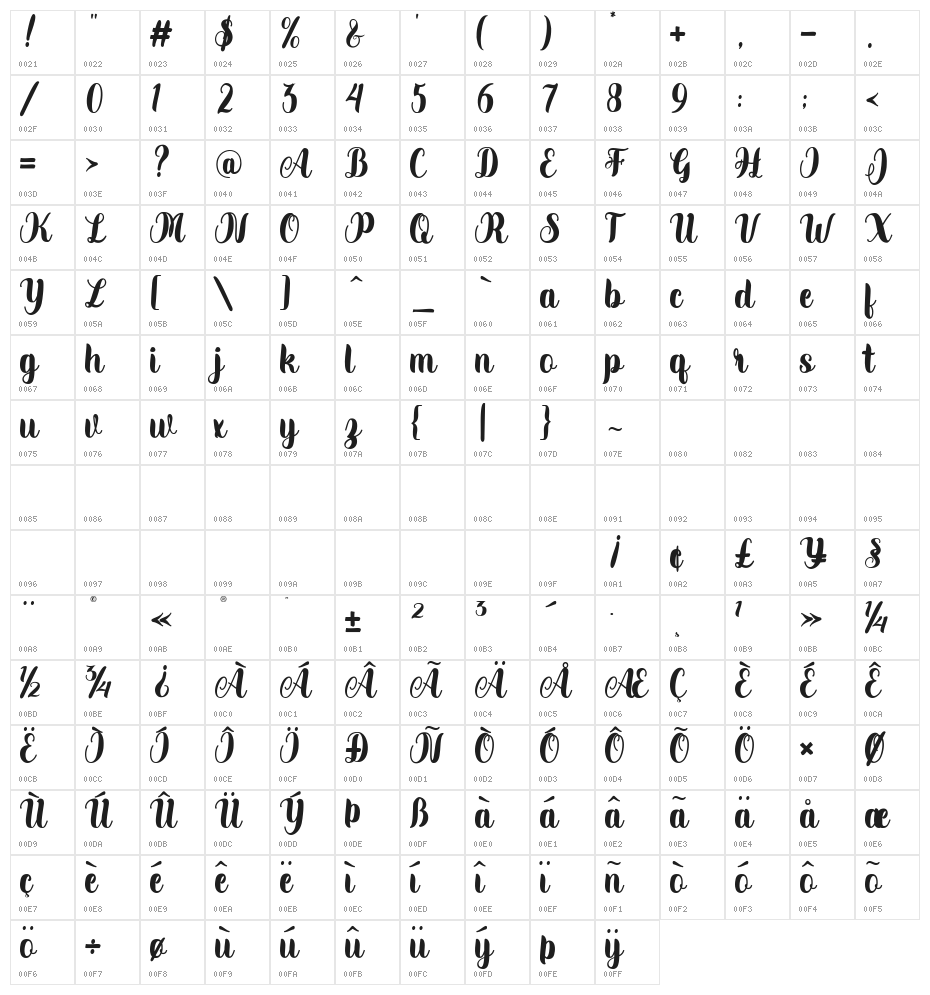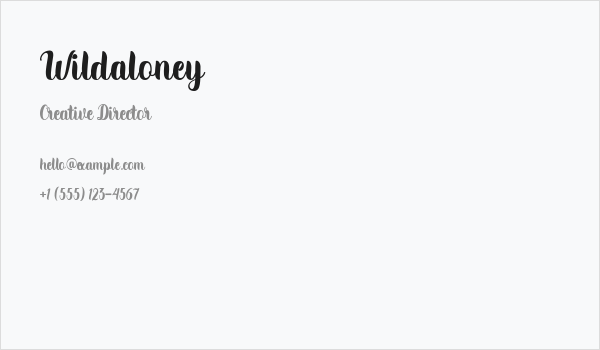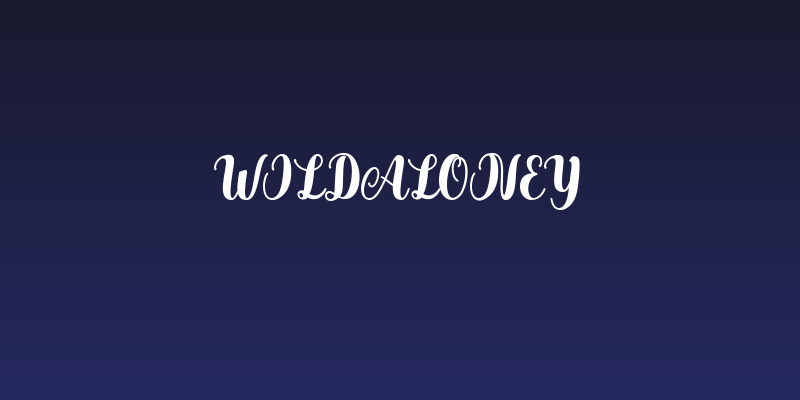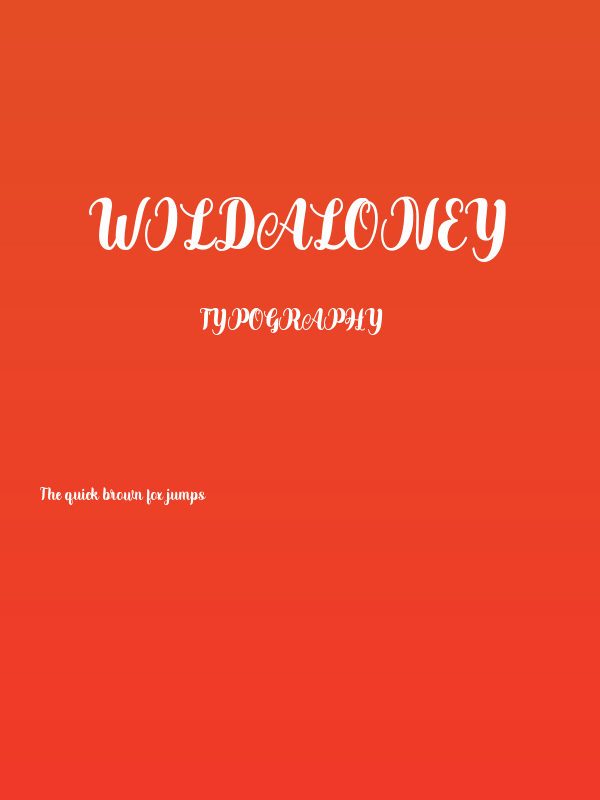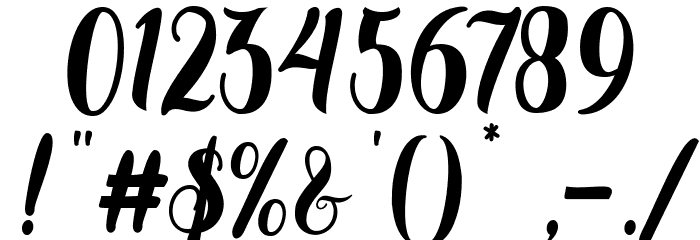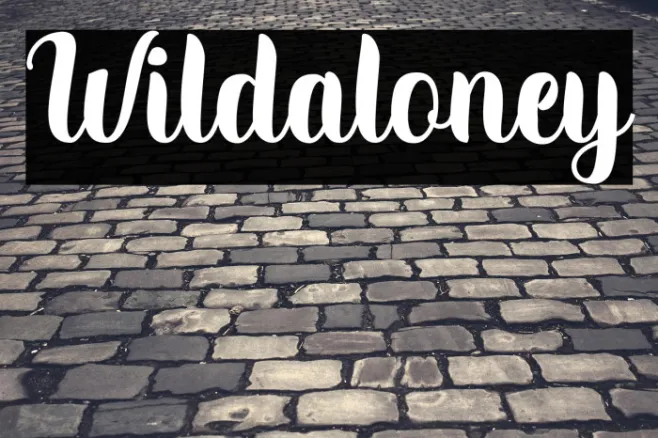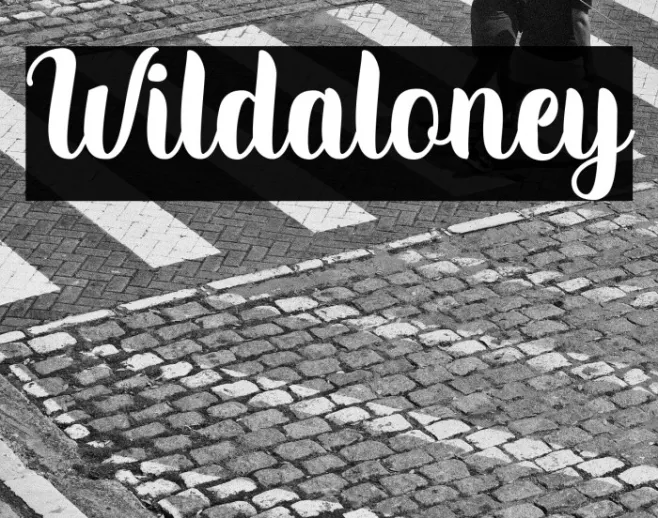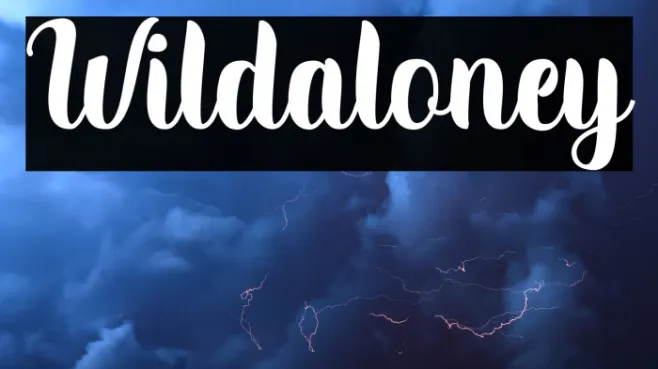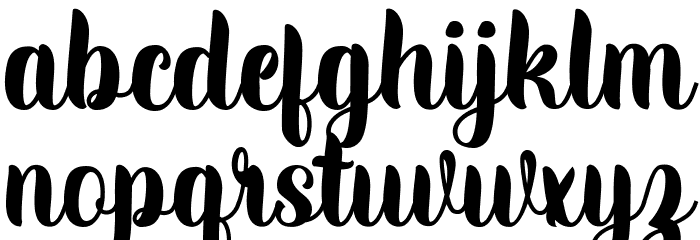
Wildaloney Font
Wildaloney Description
This font exudes a playful and elegant script style, characterized by its flowing, cursive letterforms. The uppercase letters are ornate, with sweeping curves and loops that give a sense of movement and grace. The lowercase letters maintain a consistent style, with rounded forms and a slight slant that enhances the handwritten feel. The numerals are bold and clear, matching the overall aesthetic with their rounded and slightly whimsical design. Special characters are thoughtfully integrated, maintaining the font's cohesive look. This font's charm lies in its ability to convey both sophistication and approachability, making it suitable for a variety of creative applications.
| Proposed Projects | Ideal for wedding invitations, greeting cards, branding projects, and decorative quotes. |